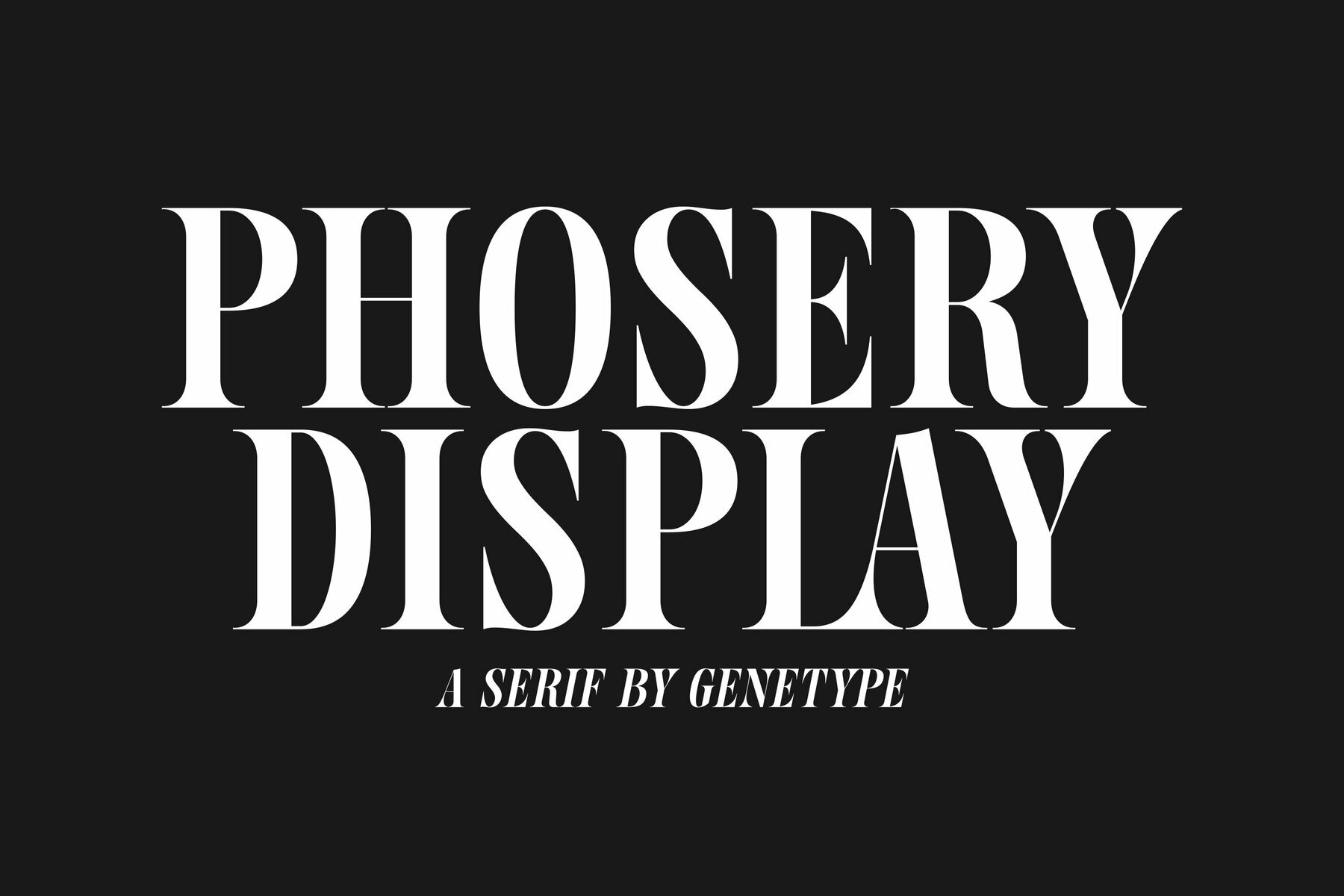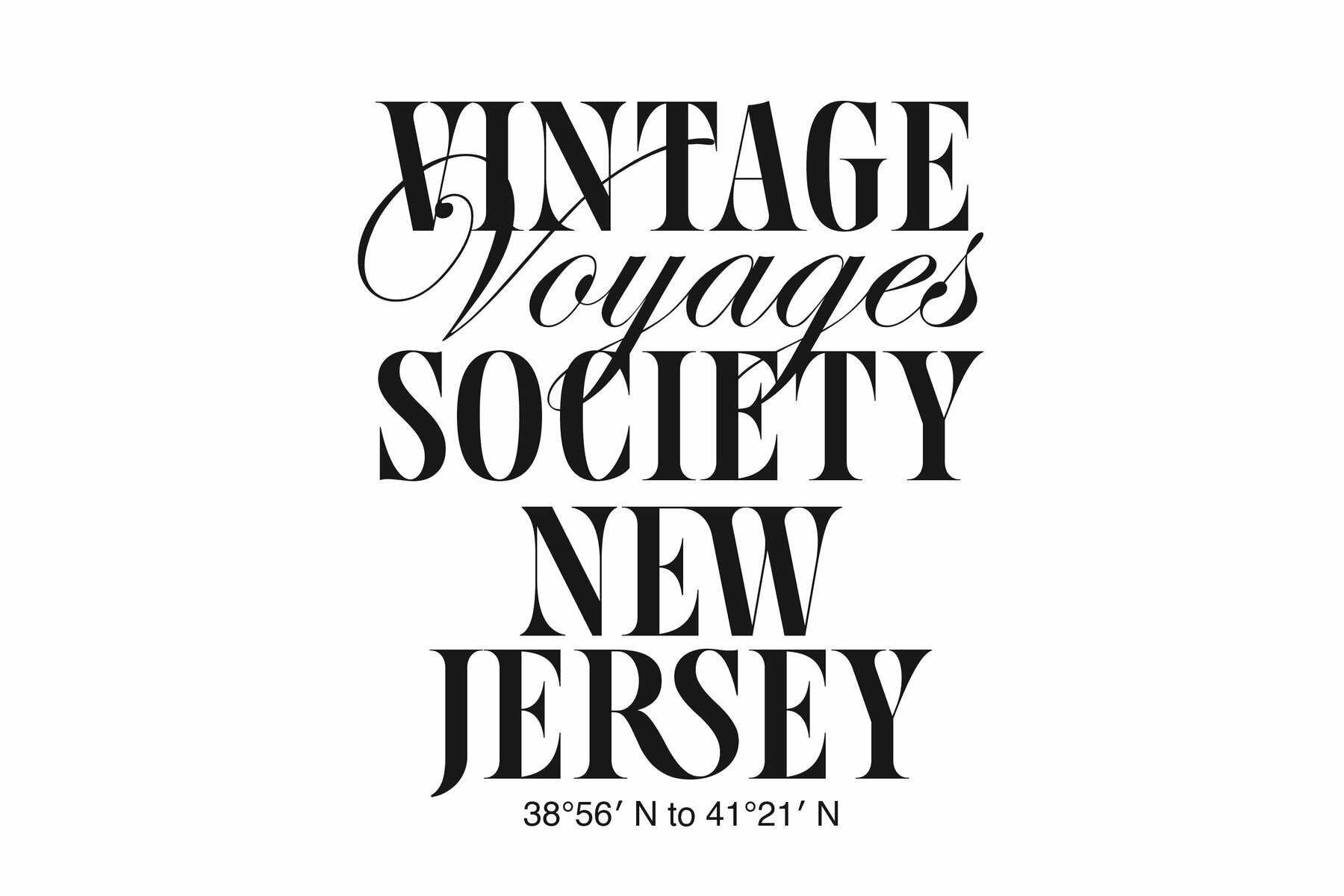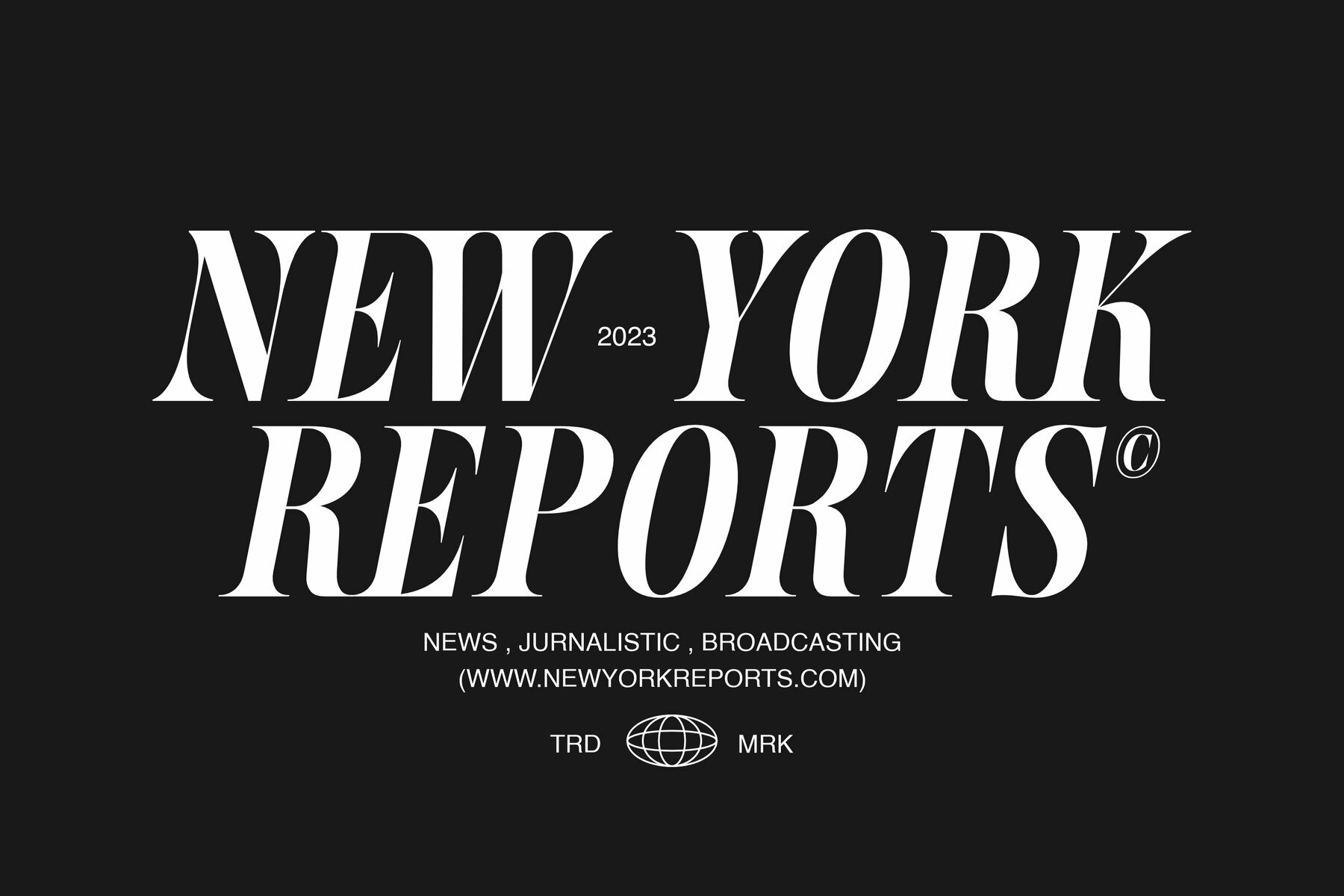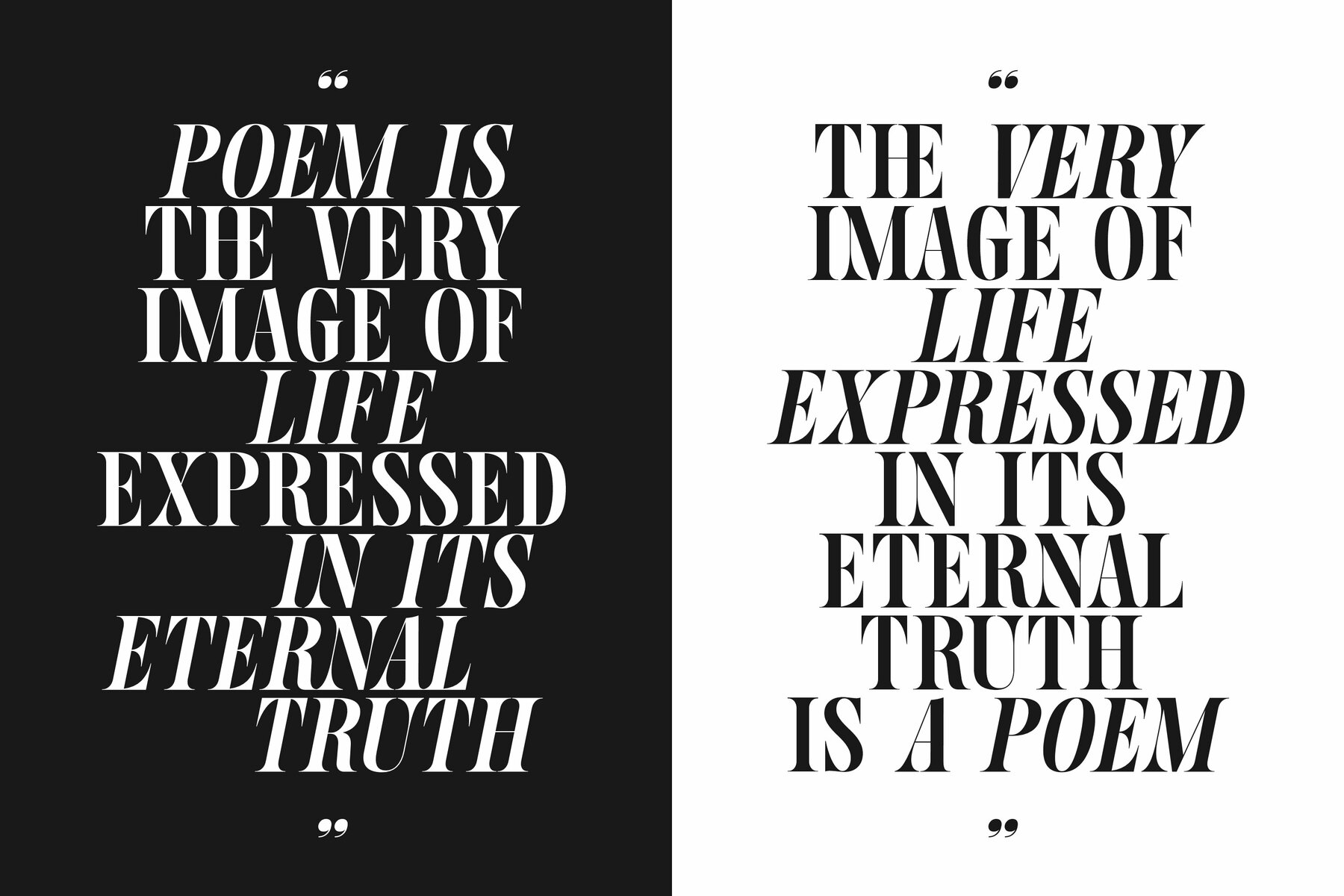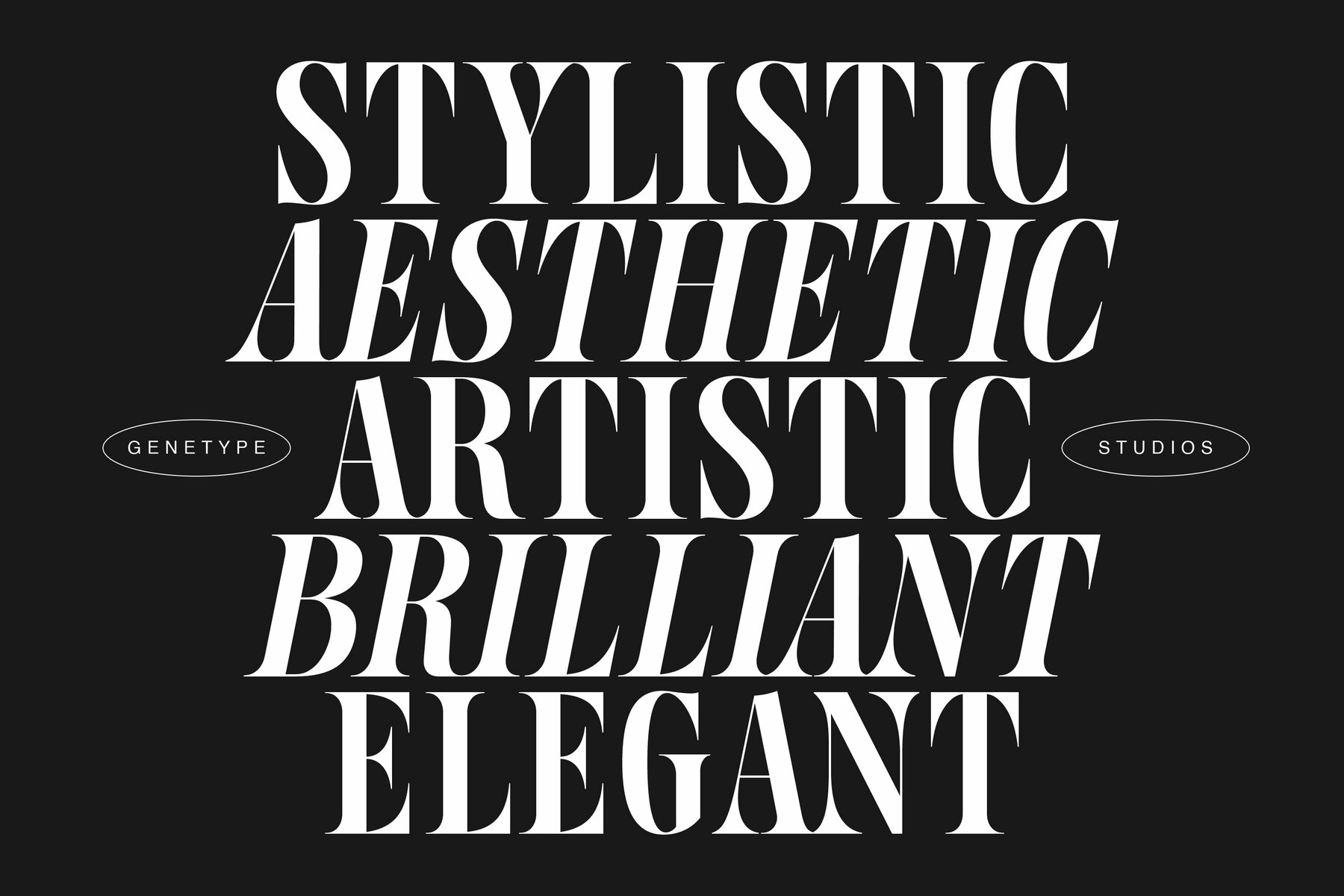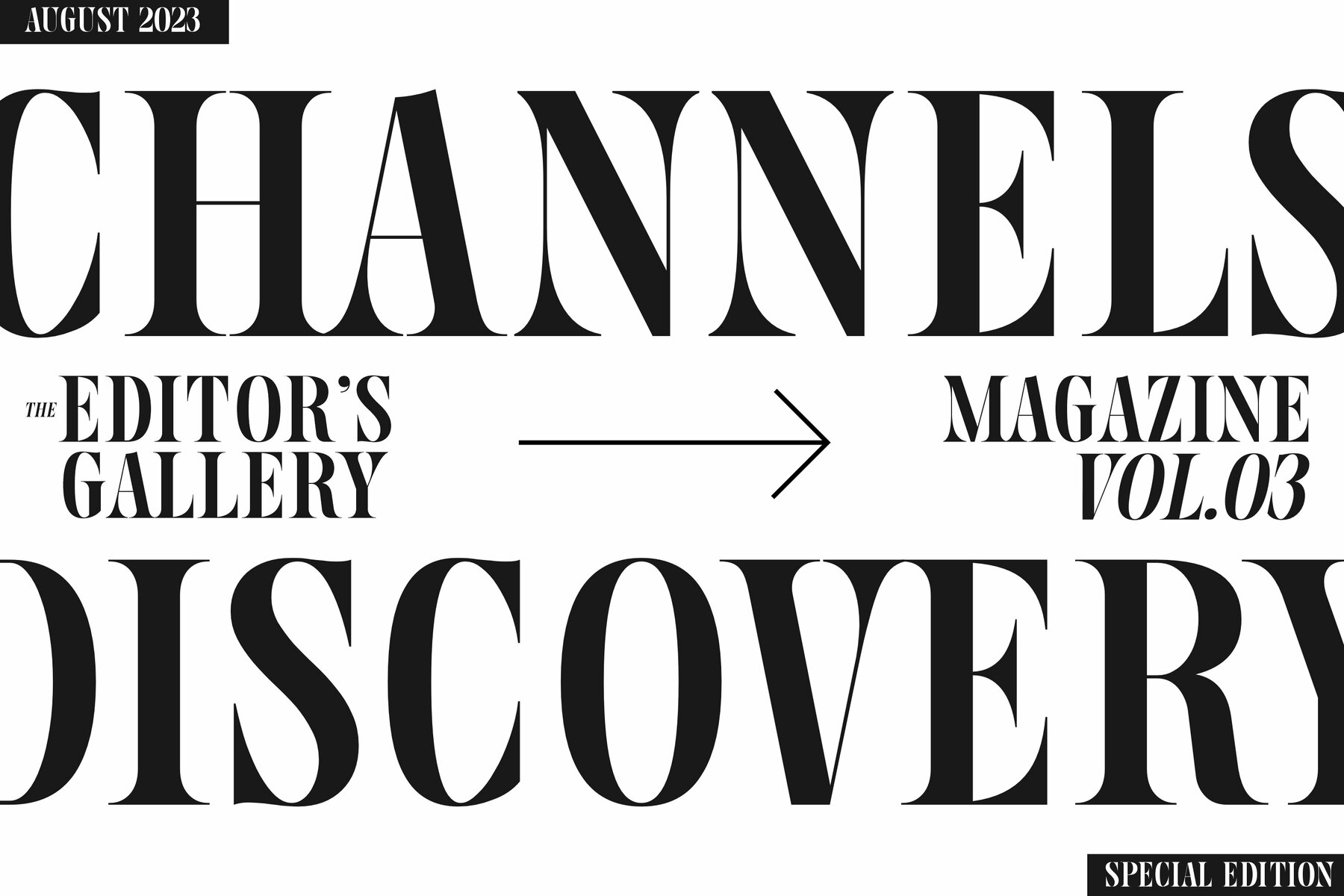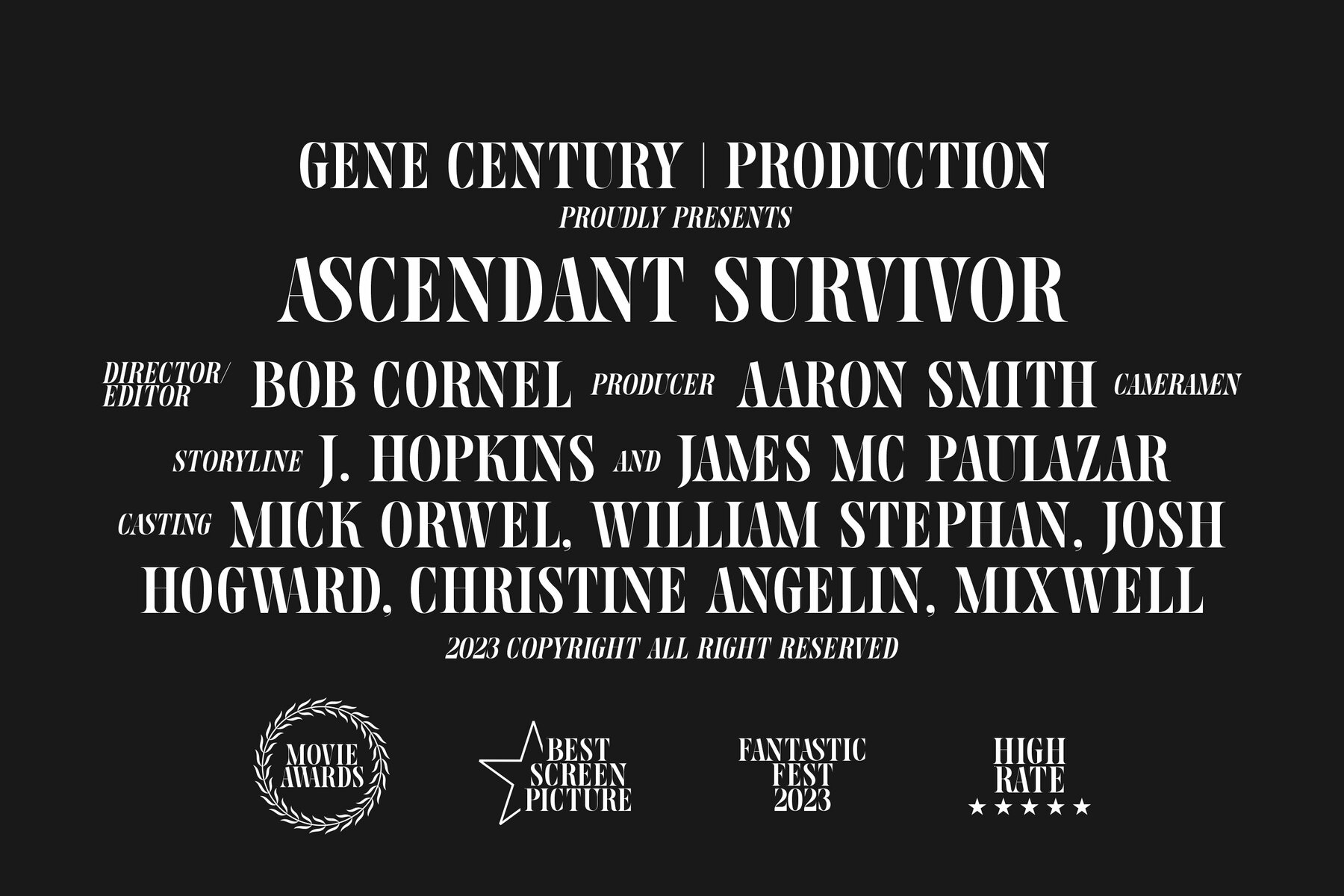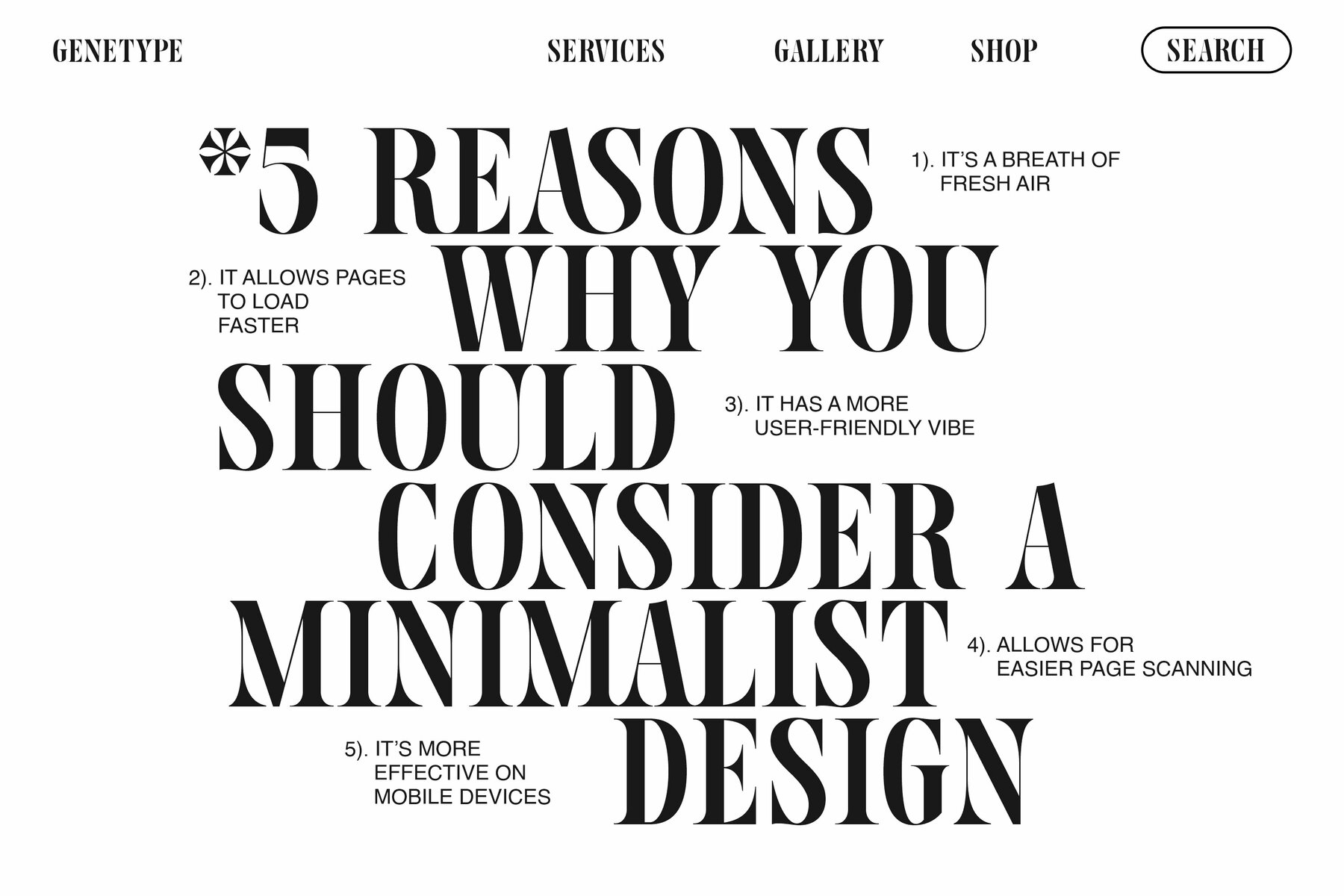
Phosery Font
Phosery Display Serif Typeface evokes regal charm with its luxurious and graceful design. Perfect for sophisticated projects, such as upscale branding and premium stationery, Phosery adds a touch of elegance to your work. Each serif detail has been crafted to enhance your design's grandeur, making it ideal for adding a sense of luxury and refinement.
Illuminate your creativity with Phosery Display Serif. This font serves as a beautiful tool to reinvigorate the art of luxury typography, ensuring that your projects stand out with unparalleled elegance. Experience the charm and sophistication of Phosery in your next high-end design project.